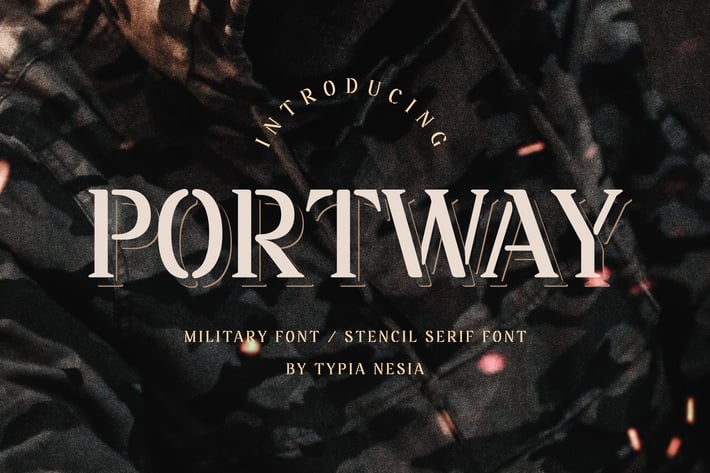
Portway - Military Font
Portway - Military Font - Stencil Serif Font
Portway Stencil Serif font is perfect for your up coming projects. Such as logo branding, editorial design, fashion, stationery design, sport design, blog design, modern advertising design, card invitation, art quote, home decor, book/cover title, special events and any more.